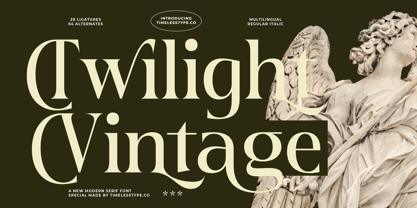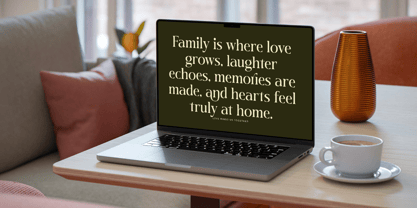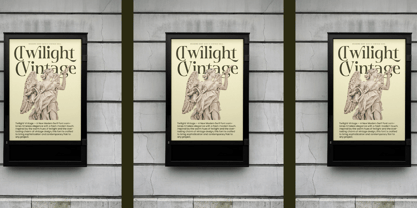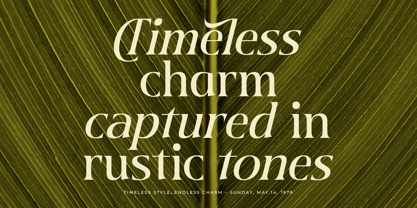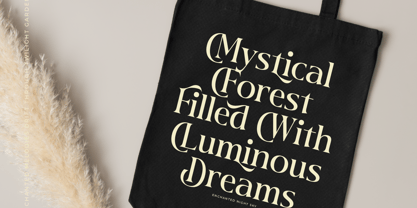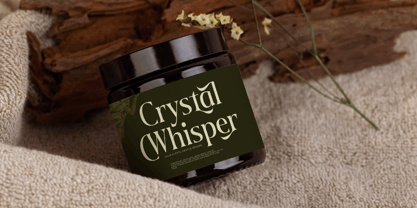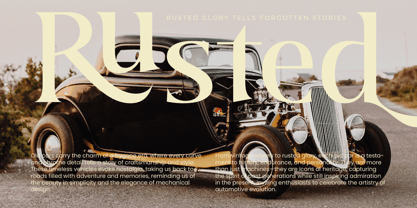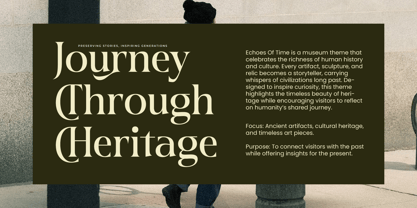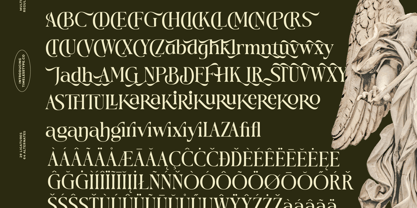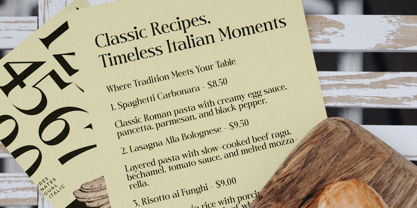
Twilight Vintage
by Timelesstype Studio
The Twilight Vintage Font Family was designed by Heru Utama Putra and published by Timelesstype Studio. Twilight Vintage contains 2 styles and family package options. More about this family
Twilight Vintage - New Modern Serif Font , from Timelesstype , Suitable for any projects such as: logos, branding projects, homeware designs, product packaging, mugs, quotes, posters, shopping bags, t-shirts, book covers, name card, invitation cards, greeting cards, label, photography, watermark, special events, and all your other luxury and beautiful projects that need a Luxury Serif taste.